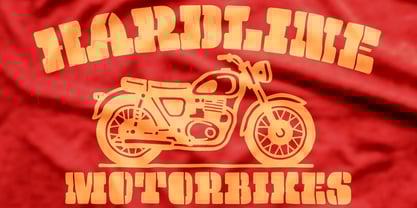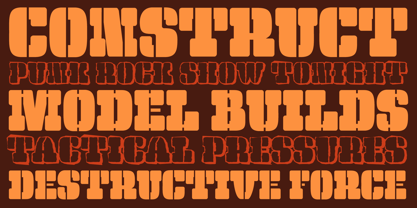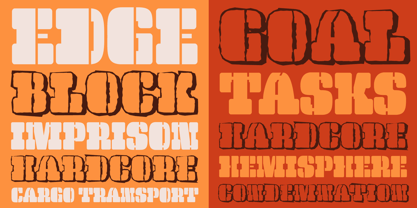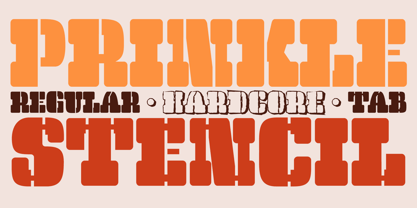
Prinkle Stencil
by Fontasmic
Prinkle Stencil is an expansion upon Prinkle, and comes from a love of old beefy wood type and funky film types mashed together.
Fat serif love and divided stencil cut forms as well as various style plays with those letterforms in the form of a Regular Stencil cut, a Hardcore rugged grunge mashup, and a Tab version reminiscent of connected plastic models.
About Fontasmic
Fontasmic is a type foundry born from a deep affection for the tactile soul of wood type, the spontaneous beauty of ephemeral design, and the charm of typography that refuses to follow the rules. Each Fontasmic creation celebrates the unpredictable—where classic craftsmanship meets a restless curiosity for the offbeat and the obscure. Drawing inspiration from vintage posters, forgotten sign painting traditions, and the imperfect textures of print history, Fontasmic channels the spirit of typographic exploration into every curve and counter. With a collection that thrives on character and quirk, the foundry embraces both the wild and the refined—fonts that carry stories, personalities, and a hint of rebellion. Whether bold and brash or subtle and strange, Fontasmic typefaces are made for designers who seek more than letters on a page—they seek emotion, history, and the spark of the unexpected.